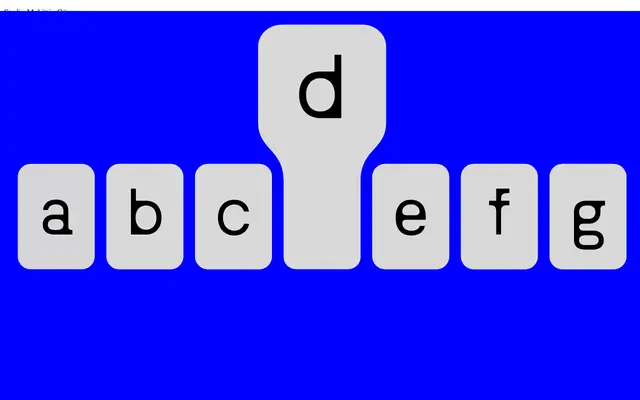
Bugrino
Güneş Muhittin · Muhittin Güneş · 2022
An experimental display sans by Muhittin Güneş that derives contrast from structural tension rather than stroke weight, mixing rounded forms with unexpected sharp edges across nine weights.
Released in August 2022 and updated through 2025, Bugrino spans 18 cuts across nine weights from Thin to Black, each with a matching italic, totalling 756 glyphs. Contrast comes from the outline and overall structure rather than from variation in stroke weight, and small shifts in proportion give the type an irregular rhythm that stays controlled enough for display work. The design courts visual friction rather than neutrality, making it most useful in contexts where formal unease is an intentional part of the message.
The foundry classifies it as Experimental Sans; it is purpose-built for display use and derives contrast from outline and structure rather than stroke modulation, placing it firmly outside conventional text sans territory.